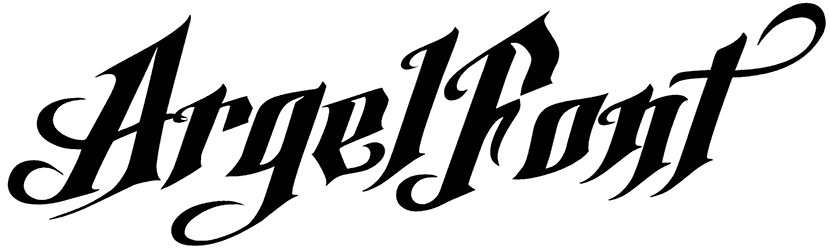
Argel Font
Are you in the marketing of a unique and lifelong tattoo font? So, how about getting started with Argel Font? This font is like old handwritten drawings, which can bring you the most classic artwork.
This tattoo font creates a flawless nostalgic feeling in the viewer and at the same time looks very professional and stylish. For this reason, even without numbers, it is the best option for designing various things such as logos and posters.